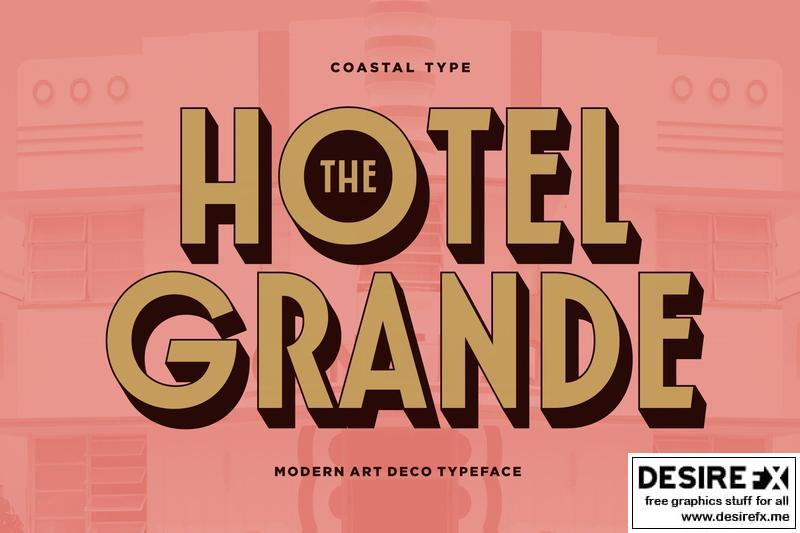
Hotel Grande VNZ6BRR
Hotel Grande is inspired by art deco and Italian signs. This display font has clean, simple letterforms that feel modern but at the same time have a retro, art-deco styling. Fiorent Deco is a great selection for headlines, logotypes and branding. it is an all-caps display font with some neat alternates including an alternate S that instantly give your copy that retro-deco look. The poster have been inspired by italian food and design. This family is perfect for use in packaging and branding of food products as well as menus and restaurant or cafe branding.